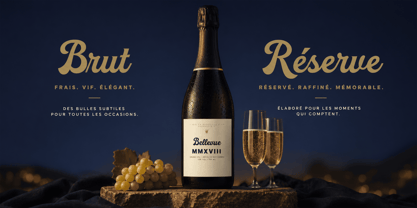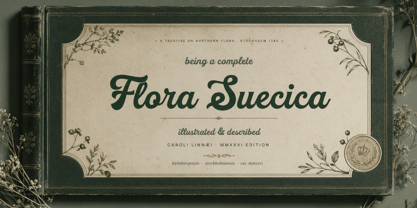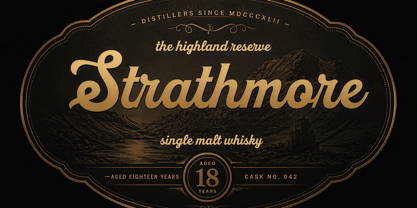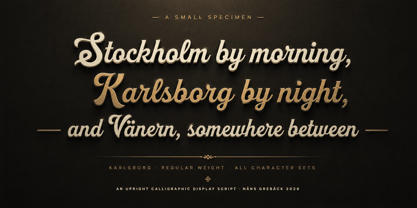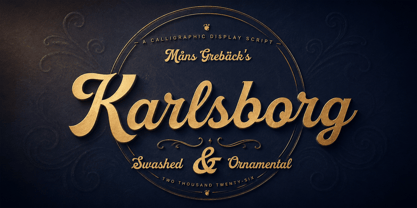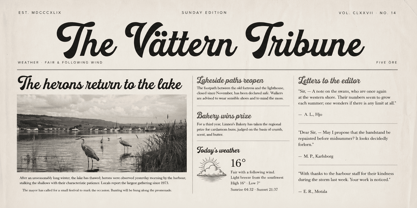
Karlsborg
Karlsborg is a calligraphic display script with long swashes and a calm, measured rhythm.
The capitals open with high entry strokes that loop back into the body of the letter, and the descenders carry on past the baseline with confidence rather than flourish for its own sake. The lowercase keeps an even weight from upstroke to downstroke, with subtle terminals that look pulled rather than constructed. The result reads as something written slowly, by hand, on good paper — closer to a kept letter than to a wedding invitation.
You can picture it engraved on the front of a small theatre programme, or set in gold on the back of a leather-bound notebook that someone has carried around for years.
The font is built with advanced functionality and guaranteed top-notch quality, containing stylistic and contextual alternates, ligatures and more automatic and manual features; all to give you full control and customizability.
It has extensive lingual support, covering all Latin-based languages, from North Europa to South Africa, from America to South-East Asia. It contains all characters and symbols you'll ever need, including all punctuation and numbers.